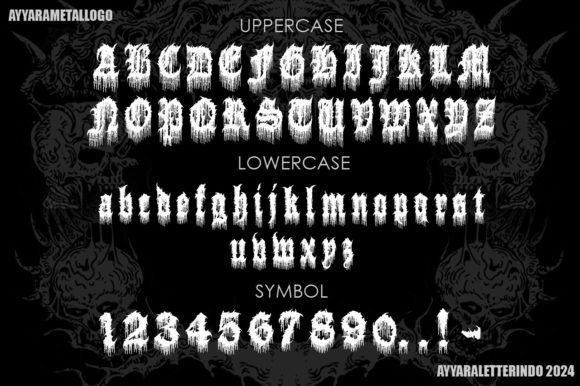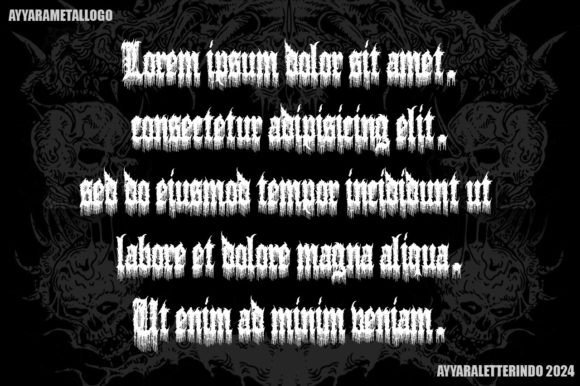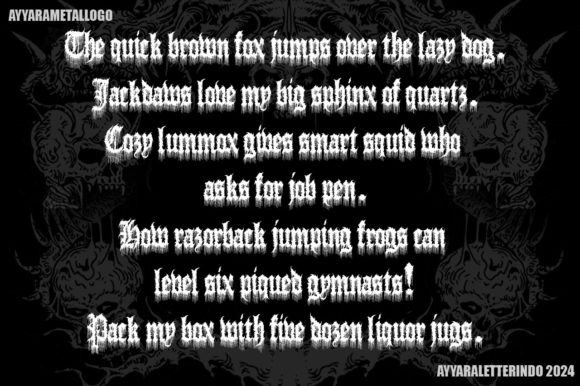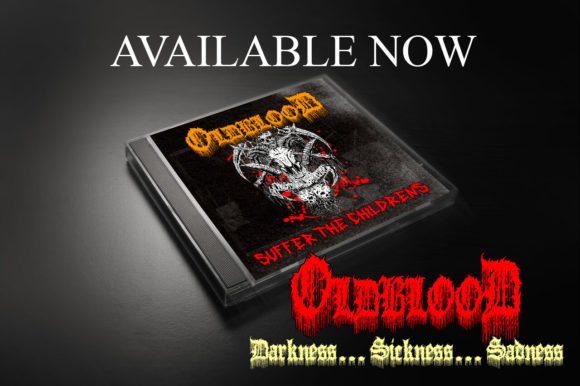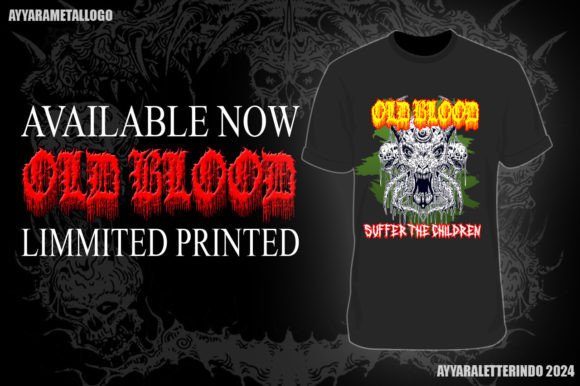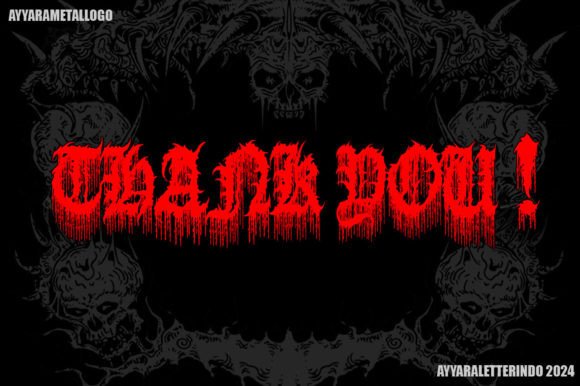
Introduction to Old Blood Font
As designers, we’ve all had those moments when a single font can transport us to a different era, evoke a specific mood, or set the tone for an entire project. For me, it was a late-night brainstorming session where I stumbled upon the Old Blood Font, and suddenly, my creative juices started flowing. This unique blackletter typeface font has a way of adding an air of mystery and sophistication to any design, making it a valuable addition to any designer’s toolkit.
With its versatility and Gothic flair, the Old Blood Font is perfect for designers looking to create eye-catching logos, posters, flyers, or any media promotions for their creative projects. Whether you’re working on a horror movie poster or a Halloween-themed design, this font is sure to make your project stand out.
Key Features of Old Blood Font
- High-quality, hand-drawn design resource ideal for creative projects.
- Features a unique, distressed aesthetic with a transparent background.
- Supports a wide range of languages, including Latin, Cyrillic, and Greek alphabets.
- Perfect for adding a touch of vintage charm to your designs, from posters to business cards.
Honest Review: Old Blood Font
As a designer, I’m always on the lookout for high-quality design resources that can elevate my creative projects. The Old Blood Font is one such resource that I’ve had the chance to work with, and I must say, it’s been a great addition to my toolkit.
What works well: ✨ The font’s unique, distressed aesthetic makes it perfect for projects that require a vintage or retro feel. The transparent background option allows for seamless integration with other design elements, making it easy to customize and adapt to different creative needs. The font’s high quality is evident in its crisp lines and well-defined characters.
Some limitations: ⚠️ While the font is free to download, it’s not suitable for all types of projects. The distressed aesthetic may not be the best fit for projects that require a clean, modern look. Additionally, the font’s character set is limited, so it may not be the best choice for projects that require a wide range of characters.
Overall, I’m impressed with the Old Blood Font. Its unique aesthetic and high quality make it a valuable addition to any designer’s toolkit. Whether you’re working on a creative project or just looking for a new font to add some visual interest, the Old Blood Font is definitely worth checking out.
- Unique, distressed aesthetic
The Old Blood Font is commonly used in:
Branding and logo design
Print materials such as business cards and brochures
Digital projects such as social media graphics and websites